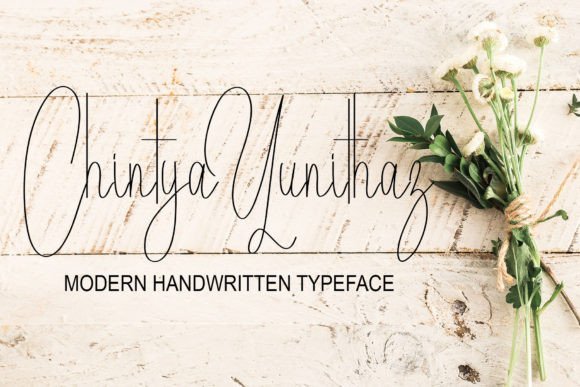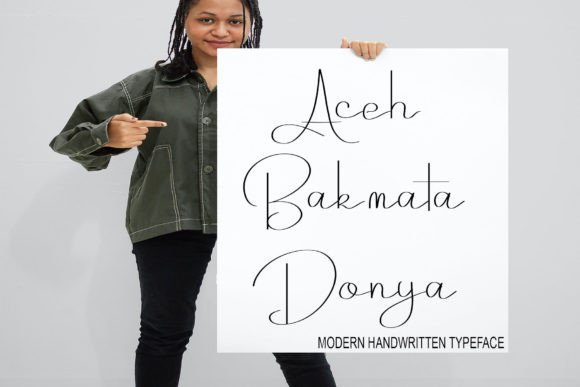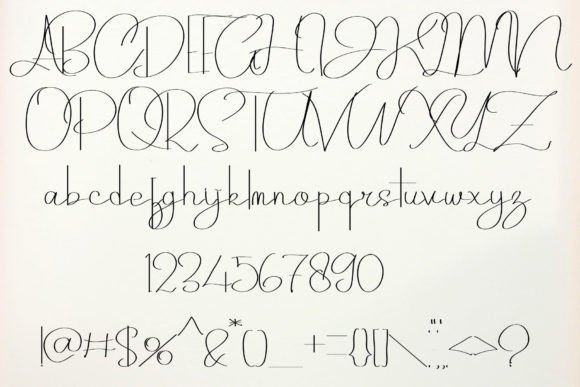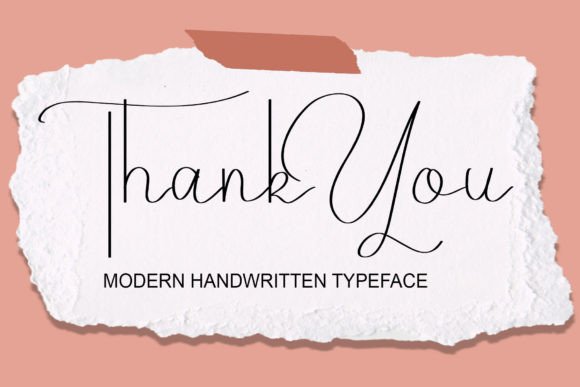
Jagathy Canthyk Font
Add Stylish Authenticity with Jagathy Canthyk Font
The Jagathy Canthyk font is a stylish handwritten script crafted by hand using a tablet, delivering a natural and contemporary look to your creative projects. Perfect for websites, wedding invitations, business cards, signatures, and all types of advertisements—whether product or service-related—this font combines simplicity with modern flair.
Perfect for Websites, Invitations, and Advertising
The Jagathy Canthyk font fits beautifully across a variety of design applications including web design, event invitations, branding materials, product promotions, and marketing campaigns. Its clean and stylish letterforms provide a fresh, professional appearance that elevates your designs.
A Handwritten Script with Smooth Flow and Style
Each character in the Jagathy Canthyk font is carefully crafted to replicate authentic handwriting with smooth, flowing strokes. This font balances simplicity with elegance, offering readability and aesthetic appeal for both headlines and detailed text elements.
Despite its simple design, the Jagathy Canthykfont maintains excellent readability across various sizes. Whether used for logos, web headers, or advertisements, it balances clarity with style, making it a versatile choice for many creative projects.
Make Your Designs Stand Out with Cool Simplicity
Typography is essential in setting your design’s tone, and Jagathy Canthyk adds a stylish and approachable character. If you want to elevate your projects with a cool, handwritten script, download the Jagathy Canthykfont today and create memorable, professional visuals.